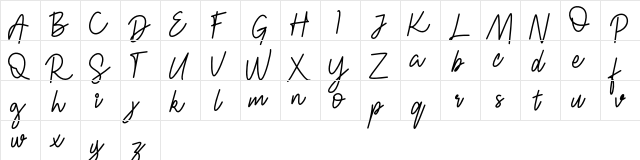
FRESH BERRIES Script FREE Regular
Design Context for FRESH BERRIES Script FREE Typeface
FRESH BERRIES Script FREE flows with the natural rhythm of handwritten lettering, making it ideal for designs that call for warmth and personal expression.
Font Pairing: Combine FRESH BERRIES Script FREE with a simple geometric sans for maximum contrast — the tension between flowing curves and clean structure is a classic typographic pairing.
Pro Tip: Use FRESH BERRIES Script FREE for short runs of text — names, titles, or taglines. Extended body copy in script faces tires the eye quickly.